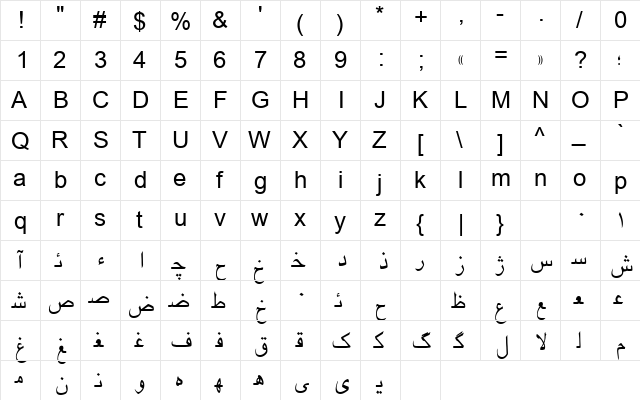
Negah Web Font 02 Regular
Design Context for Negah Web Font 02 Typeface
Negah Web Font 02 offers clean, dependable letterforms without strong stylistic allegiance, making it a practical choice for designers who need flexibility.